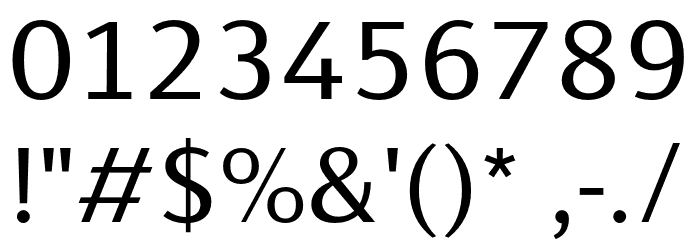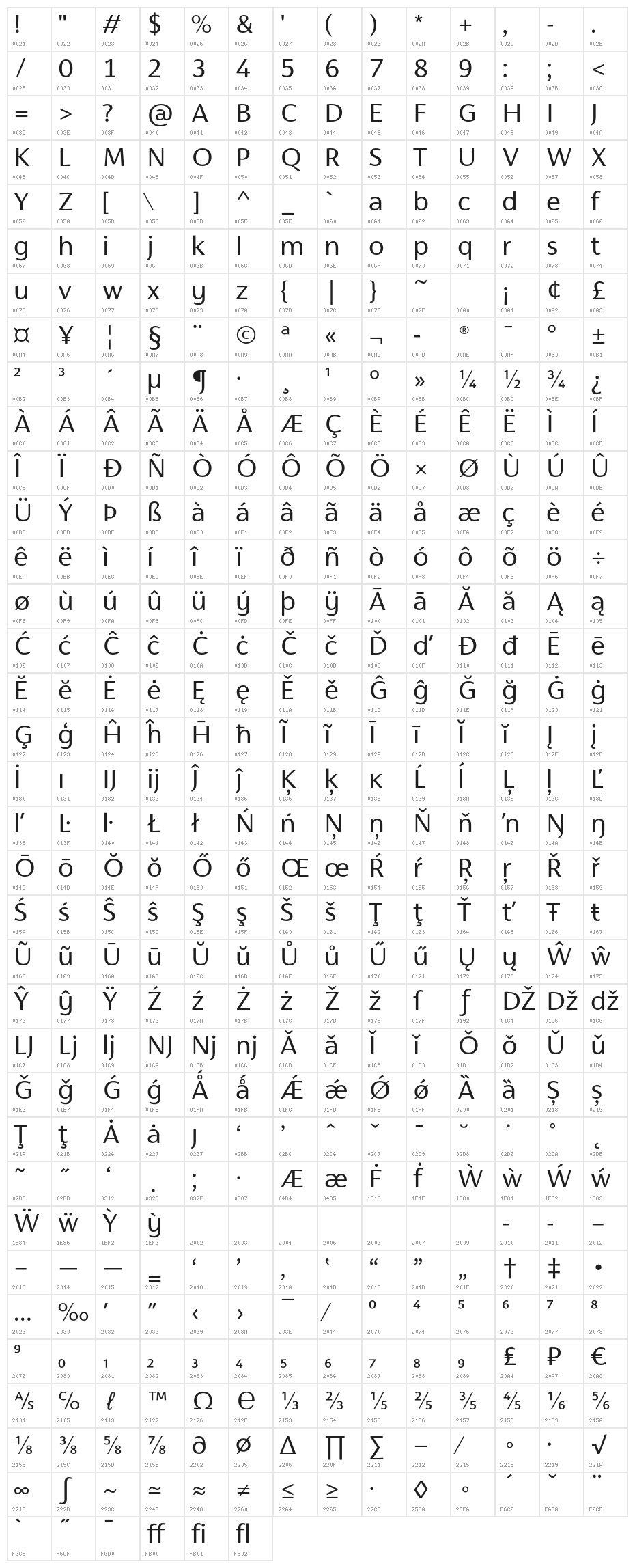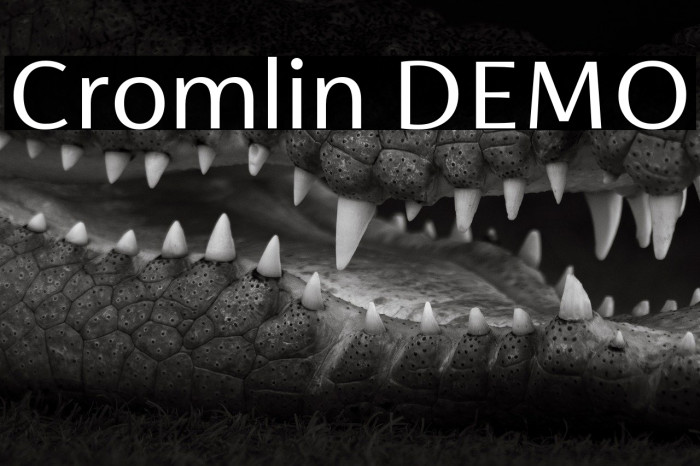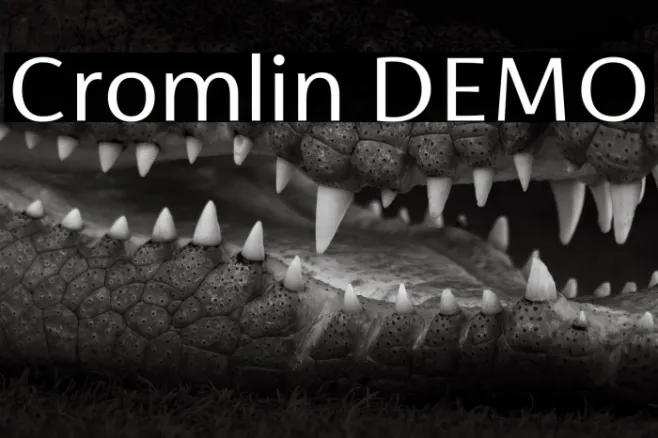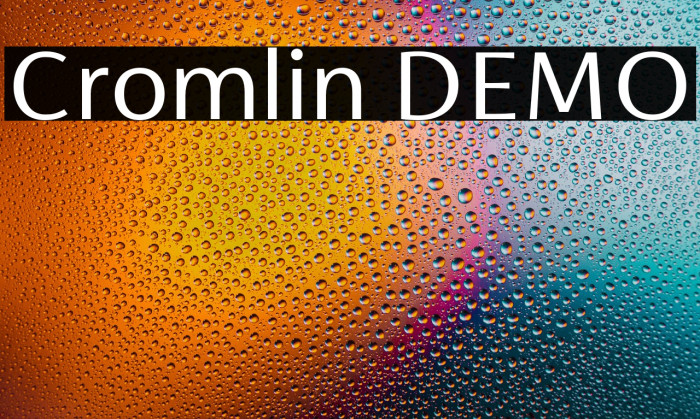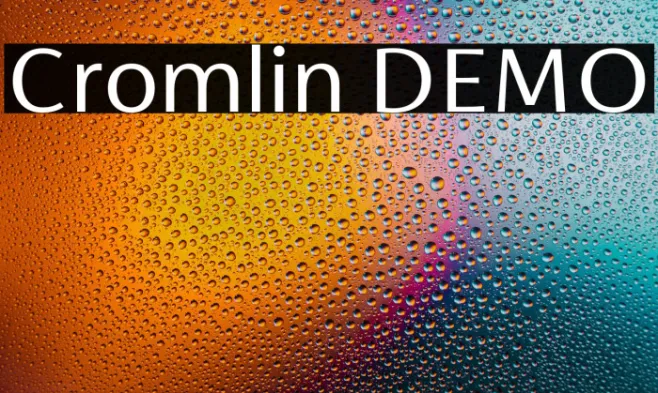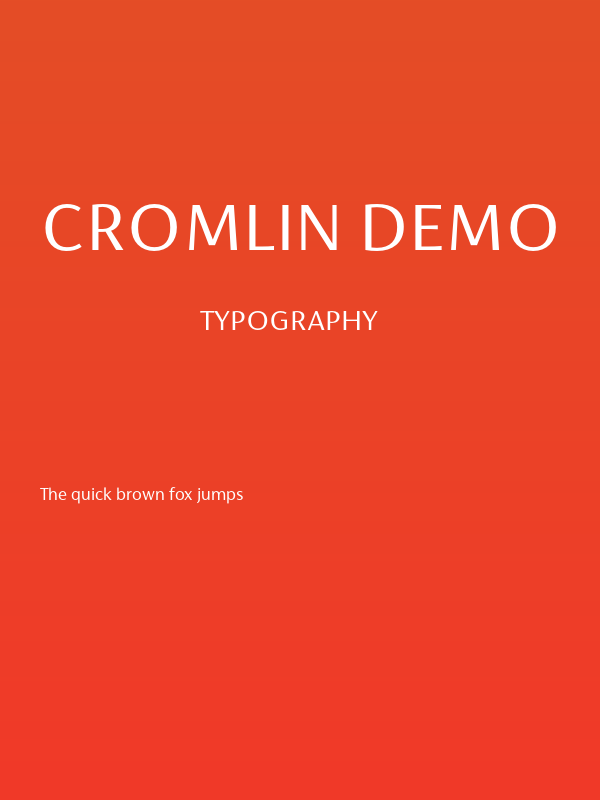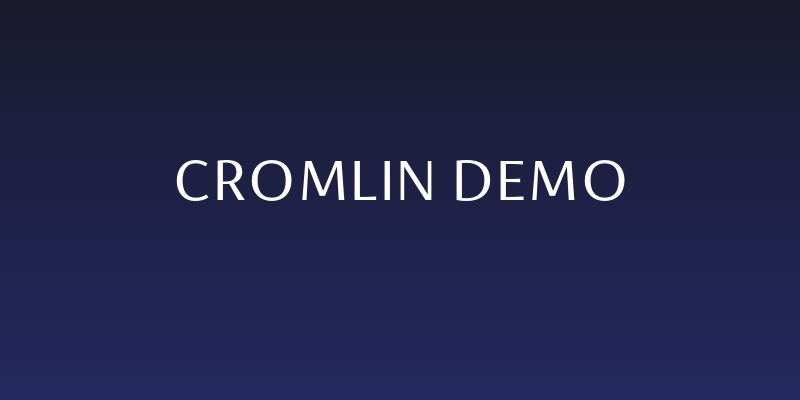
Cromlin DEMO Font
Cromlin DEMO Description
This font exhibits a clean and modern sans-serif style, characterized by its simplicity and readability. The letters are evenly spaced with a consistent stroke width, contributing to a balanced and harmonious appearance. The uppercase letters are slightly taller than the lowercase, which are rounded and smooth, enhancing legibility. The numerals are clear and distinct, making them suitable for various applications. Special characters are well-defined, maintaining the overall aesthetic of the font. Its straightforward design makes it versatile for both digital and print media.